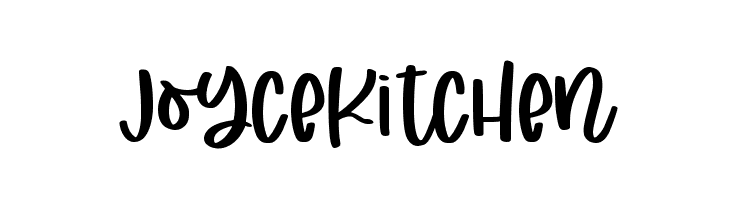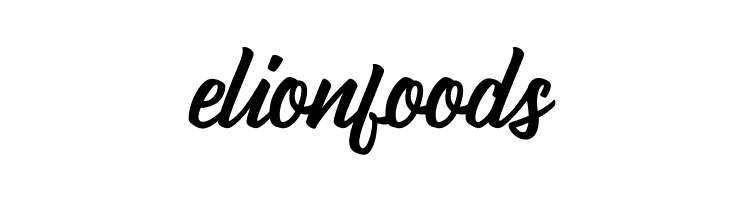
A bold, playful handwritten font with a lively and modern style.
A modern, elegant script font with flowing, cursive letters.
A modern, italic sans-serif font with medium contrast and normal spacing.
A dynamic, brush-style font with expressive, hand-painted strokes.
An elegant, cursive handwritten font with a fluid and italic style.
A bold, geometric font with a modern and playful aesthetic.
A bold, geometric font with a modern, industrial aesthetic.
A bold, playful font with angular, dynamic characters.
An elegant and fluid script font with graceful, sweeping strokes.
A fluid and dynamic handwritten cursive font with elegant letterforms.